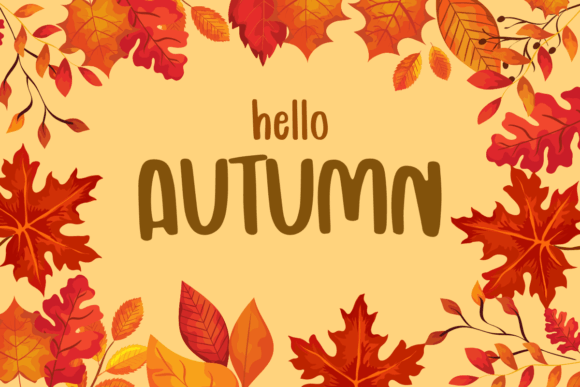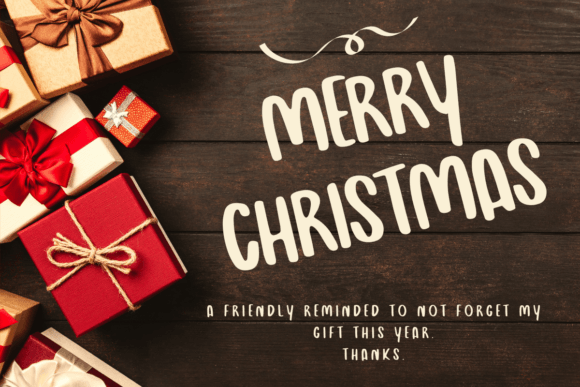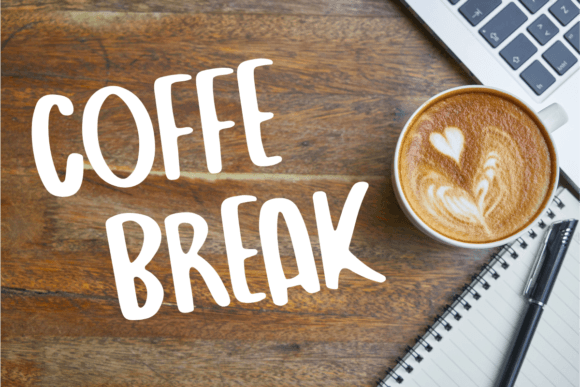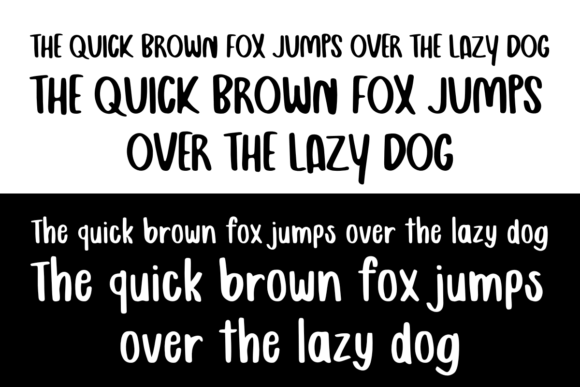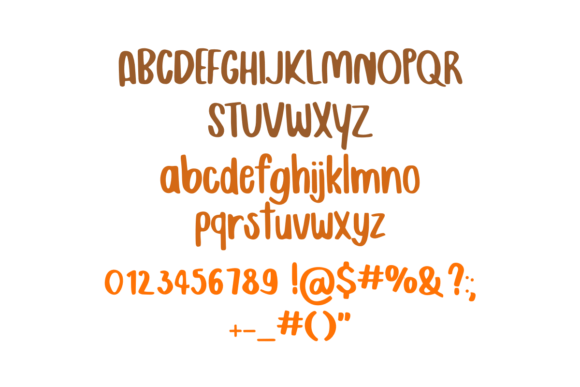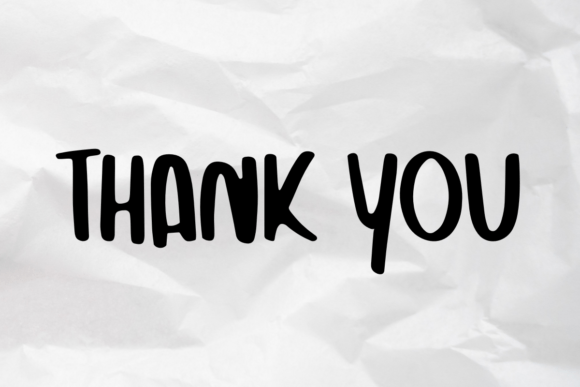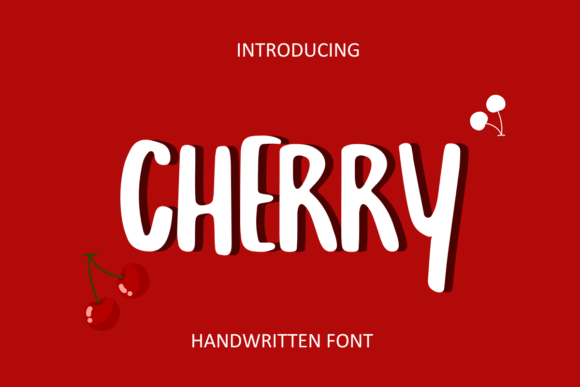
Introducing Cherry Font: The Perfect Addition to Your Festive Projects
Are you looking for a font that adds a touch of fun and quirkiness to your designs? Look no further than Cherry Font! This delightful handwritten font is perfect for all your festive projects, from holiday cards and decorations to party invitations and more.
What Makes Cherry Font So Special?
Cherry Font is a unique and playful font that is sure to capture the attention of your audience. Its handwritten style gives it a personal and friendly feel, making it perfect for projects that require a touch of whimsy and charm. The font’s quirky and irregular shapes add to its charm, making it a great choice for designers and crafters who want to add some personality to their work.
Features of Cherry Font
- Handwritten style: Cherry Font has a beautiful, handwritten style that gives it a personal and friendly feel.
- Quirky and irregular shapes: The font’s quirky and irregular shapes add to its charm and make it perfect for festive projects.
- Perfect for festive projects: Cherry Font is designed specifically for festive projects, making it a great choice for holiday cards, decorations, and more.
- Easily readable: Despite its quirky style, Cherry Font is easily readable, making it perfect for use in a variety of projects.
Uses for Cherry Font
Cherry Font is a versatile font that can be used in a variety of projects, including:
- Holiday cards and invitations: Add a touch of whimsy and charm to your holiday cards and invitations with Cherry Font.
- Festive decorations: Use Cherry Font to create festive decorations, such as garlands, banners, and more.
- Party invitations: Make your party invitations stand out with Cherry Font’s playful and quirky style.
- Crafting projects: Cherry Font is perfect for a variety of crafting projects, including scrapbooking, DIY signs, and more.
Tips for Using Cherry Font
Here are a few tips for using Cherry Font in your projects:
- Use it sparingly: While Cherry Font is a fun and playful font, it can be overwhelming if used too much. Use it sparingly to add a touch of whimsy to your projects.
- Pair it with other fonts: Cherry Font pairs well with other fonts, such as serif and sans-serif fonts. Experiment with different pairings to find the one that works best for your project.
- Experiment with colors: Cherry Font looks great in a variety of colors, from bright and bold to pastel and soft. Experiment with different colors to find the one that works best for your project.
Cherry Font is a fun and quirky handwritten font that is perfect for all your festive projects. Its unique and playful style makes it a great choice for designers and crafters who want to add some personality to their work. With its easily readable style and versatile uses, Cherry Font is sure to become a favorite in your font collection.
Cherry Font in Action
Here’s an example of what Cherry Font looks like in action:
Merry Christmas and Happy Holidays!
As you can see, Cherry Font adds a touch of whimsy and charm to any project. Its playful and quirky style makes it perfect for festive projects, and its easily readable style makes it perfect for use in a variety of designs.